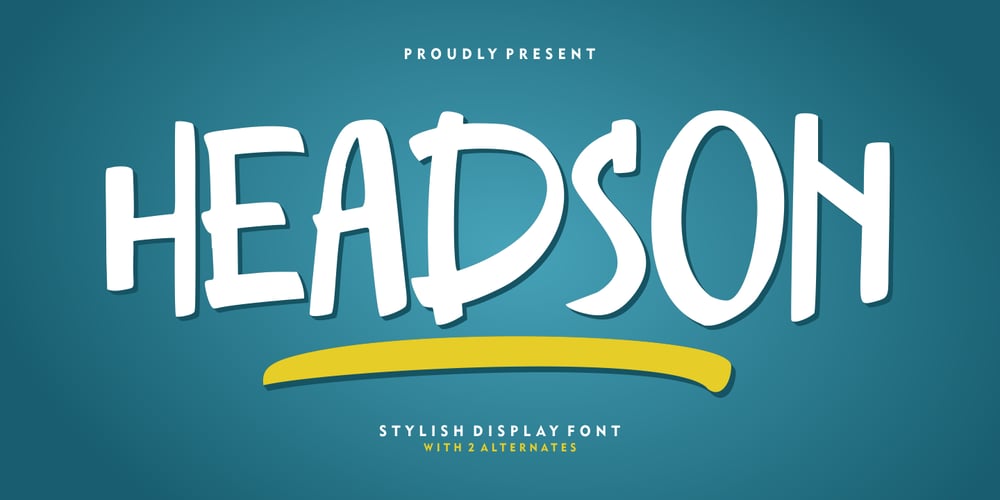
Headson
Headson font
Headson Font Family was designed by Risman Ginarwan and published by Garisman Studio. Headson contains 1 styles and family package options. Introducing Headson combines attractive curves with a fresh urban edge; delivering a stylish script which is guaranteed to add an eye-catching appeal to your logo designs, brand imagery, quotes, product packaging, merchandise & social media posts. – Simple installation – Work for PC and MAC – Multilingual Support Thank You! GRSMN Std. 2012